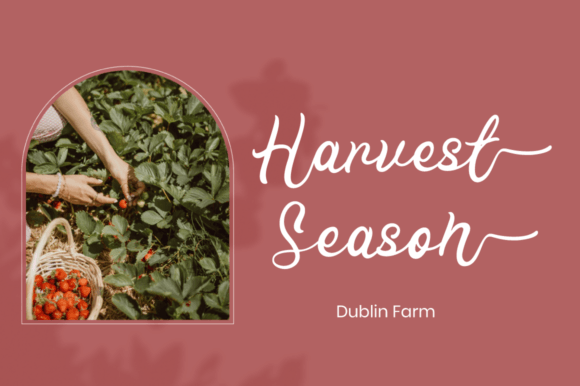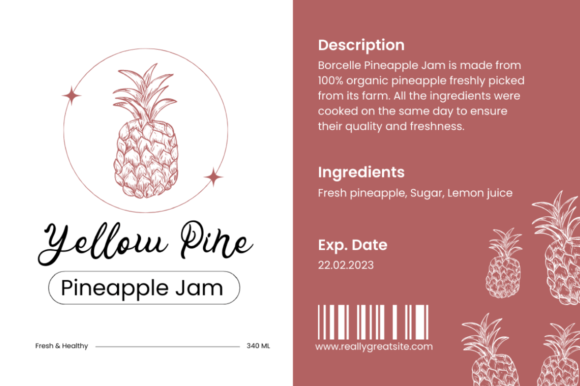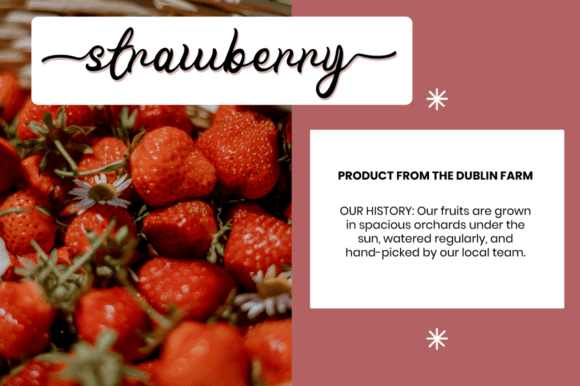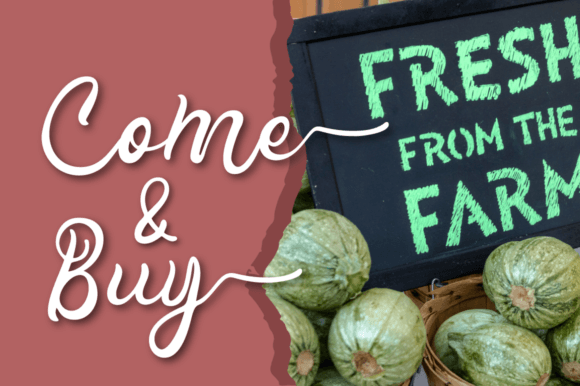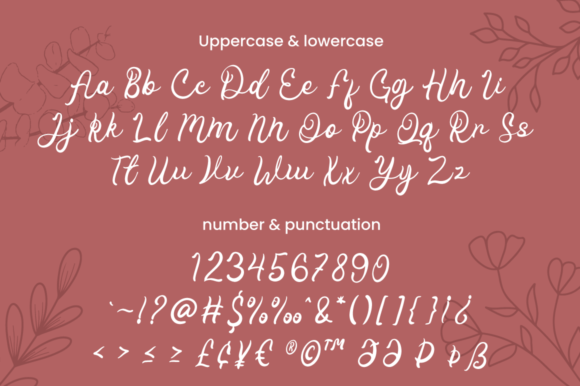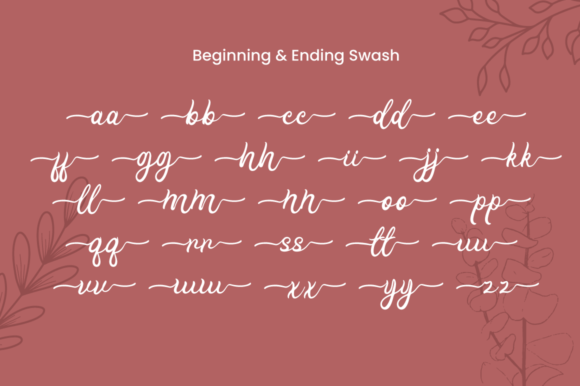
Introduction to Pink Farmhouse Font Font
Fonts play a crucial role in design, and the Pink Farmhouse Font font is a typeface that brings both character and versatility to any project. Whether you’re working on a branding project, a website, or a print design, the Pink Farmhouse Font font offers a unique style that can elevate your work.
Pink Farmhouse is a cute script font with lovely stylistic alternates.
With its beautiful rhythm, this font will help you create gorgeous and classy compositions Use it for branding projects, invitations, web graphics, cards, and many more.
Key Features of Pink Farmhouse Font Font
Why Choose Pink Farmhouse Font Font?
The Pink Farmhouse Font font is more than just a typeface – it’s a design tool that helps you communicate your message with style and clarity. Its unique character set and versatile design make it suitable for a wide range of applications, from elegant invitations to bold headlines.
With its carefully crafted letterforms and balanced proportions, the Pink Farmhouse Font font ensures readability and visual appeal across all mediums.
What makes Pink Farmhouse Font font special?
The Pink Farmhouse Font font stands out with its unique design, exceptional readability, and versatility across various design applications.